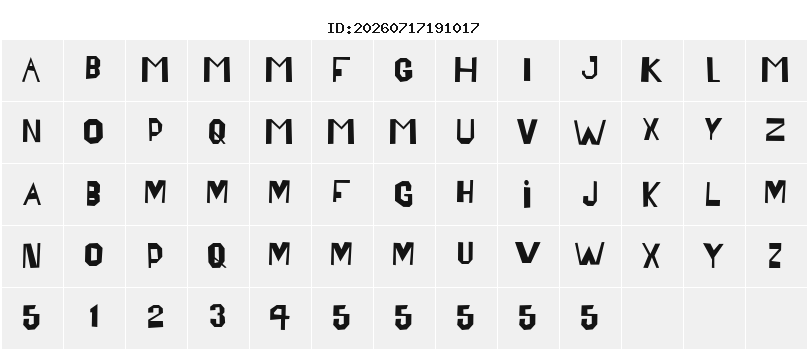
BensfolkDemo.ttf is a modern, elegant sans-serif font designed for ultimate readability and visual harmony. Perfect for branding, headlines, web design, and print materials.